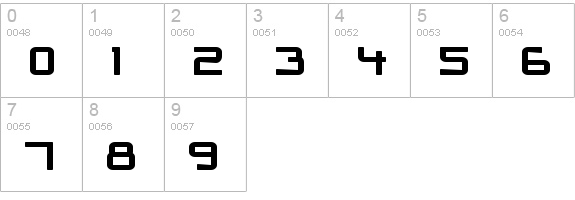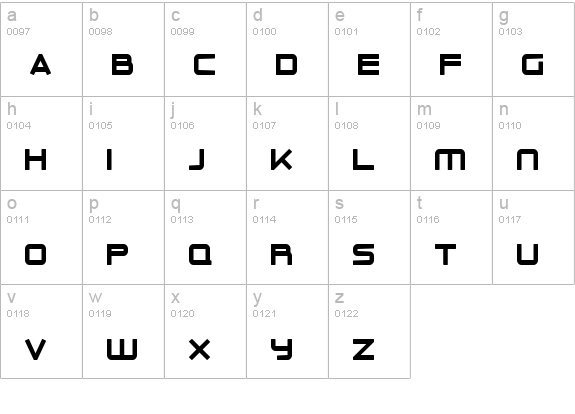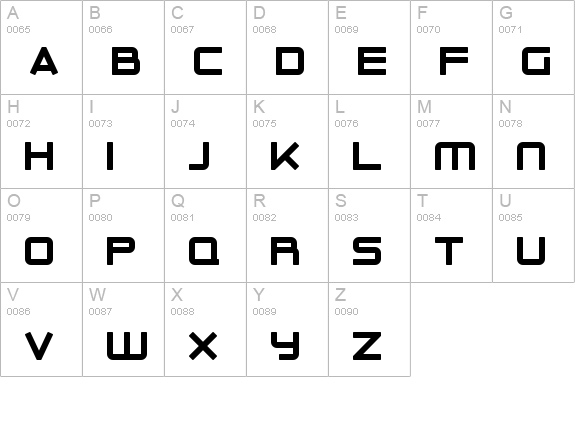
Outer Limits Solid Font Details
Outer Limits Solid font is a captivating and futuristic typeface that brings a sense of otherworldly charm to any design project. With its bold and streamlined appearance, this font exudes a sense of mystery and innovation, making it perfect for sci-fi, technology, or gaming-related designs. The solid version of Outer Limits adds a touch of strength and stability to the overall aesthetic, making it a versatile choice for a wide range of applications. Best of all, Outer Limits Solid font is available for free download at FontsMarket.com. This means you can easily incorporate this unique typeface into your projects without any cost or hassle. So why wait? Elevate your designs with the striking and modern appeal of Outer Limits Solid font today!